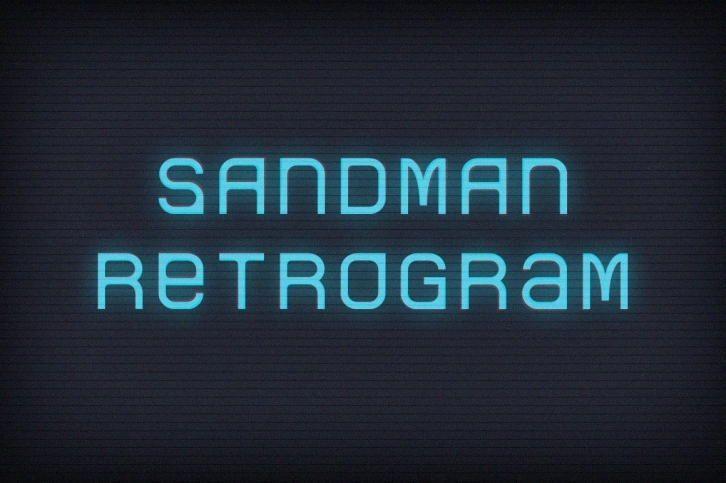
Welcome to the 23rd century.
This typeface is based on the computer screen type seen in the movie Logan's Run. I wanted to recreate it since I couldn't find any information on it via the interweb, however I set out to make a unicase and monospaced typeface. Just because it seemed like the thing to do.
This has a few alternates for letters so it can be all "caps" when needed.